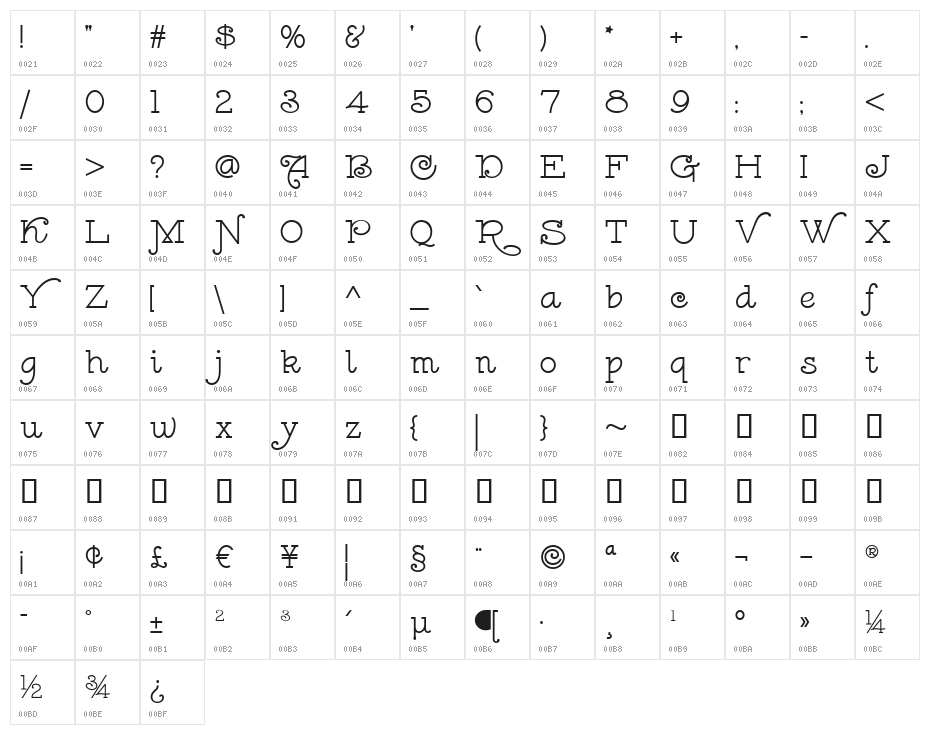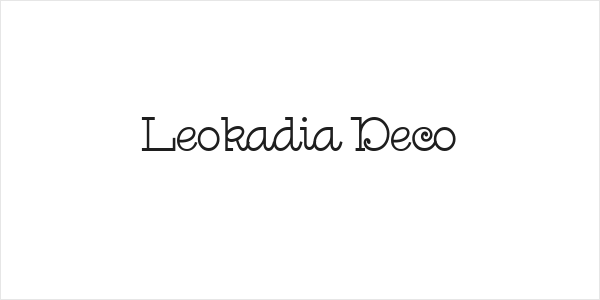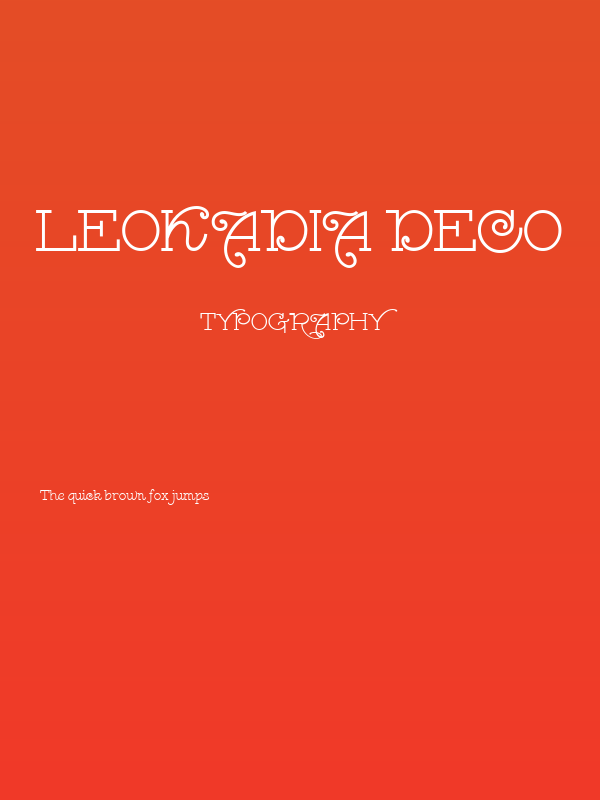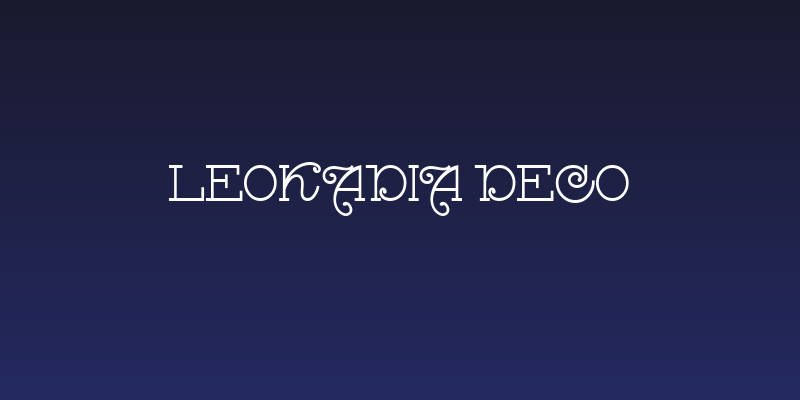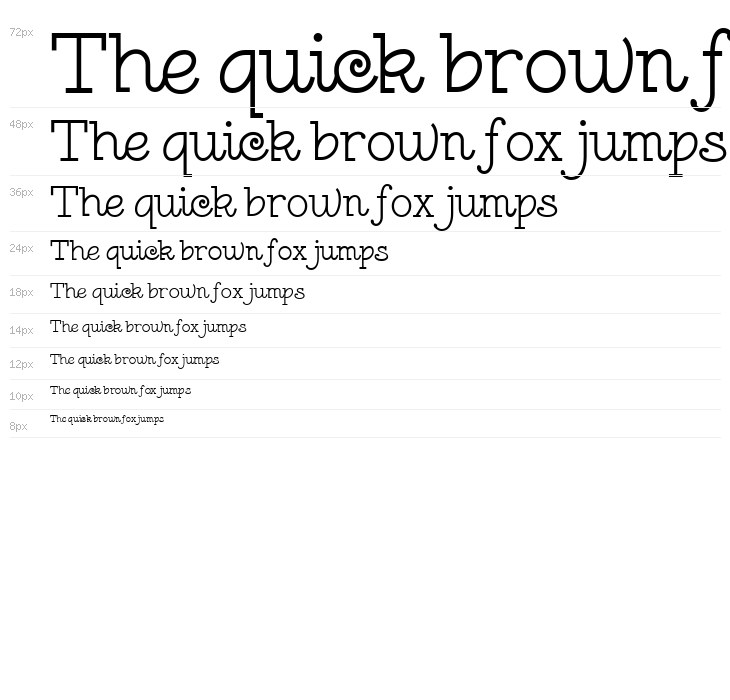
Leokadia Deco Font
Leokadia Deco Description
This font exhibits a unique blend of decorative and modern elements, characterized by its elegant swirls and curls on certain letters, particularly noticeable in the uppercase set. The lowercase letters maintain a more subdued yet stylish appearance, balancing the ornate nature of the uppercase. The numerals are clear and consistent, matching the overall aesthetic with a slight flair. Special characters are thoughtfully designed, integrating seamlessly with the rest of the typeface. The font's overall design suggests a playful yet sophisticated tone, making it versatile for various creative applications.